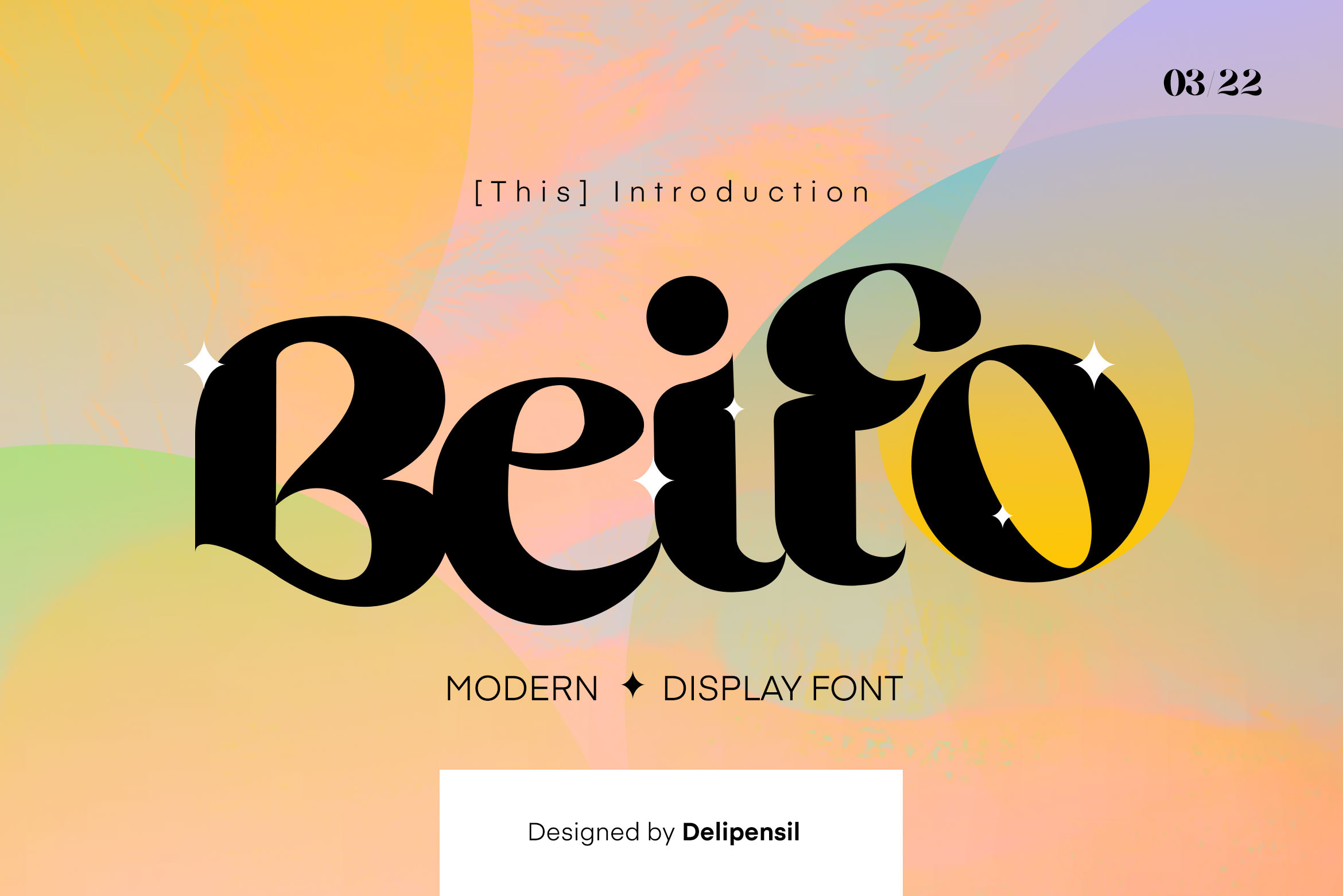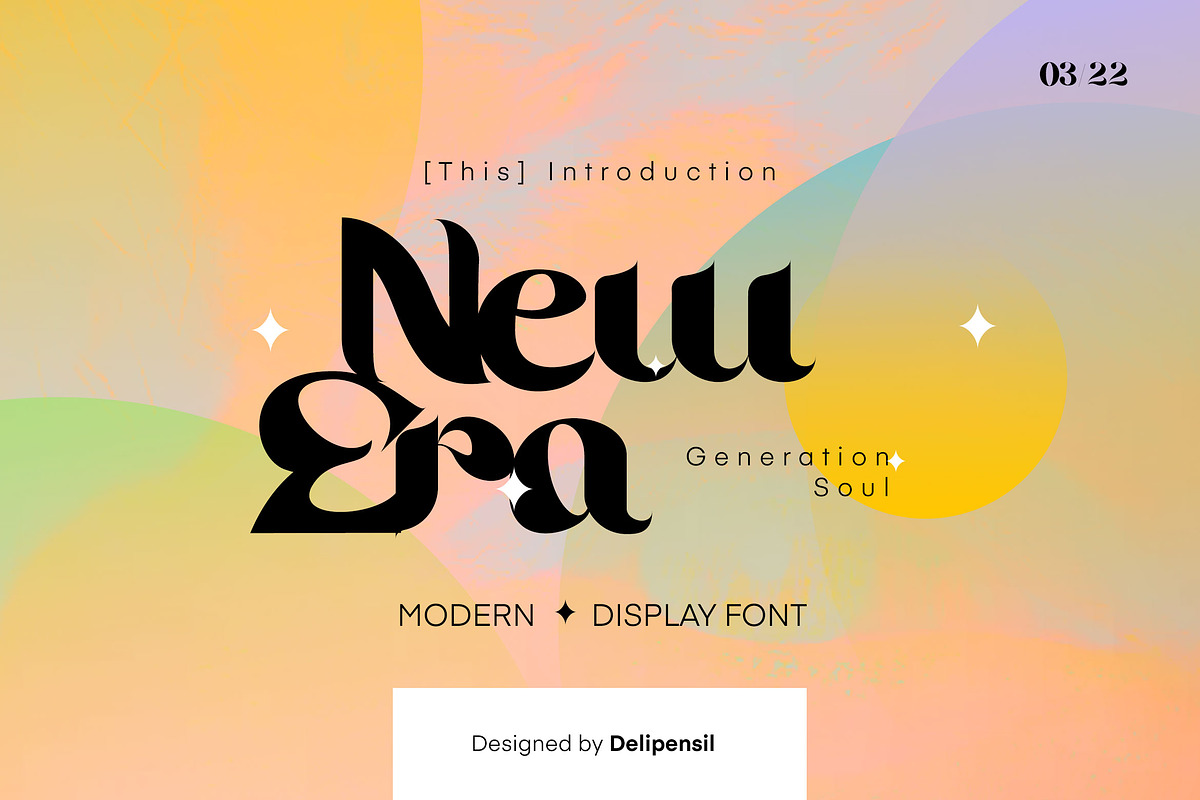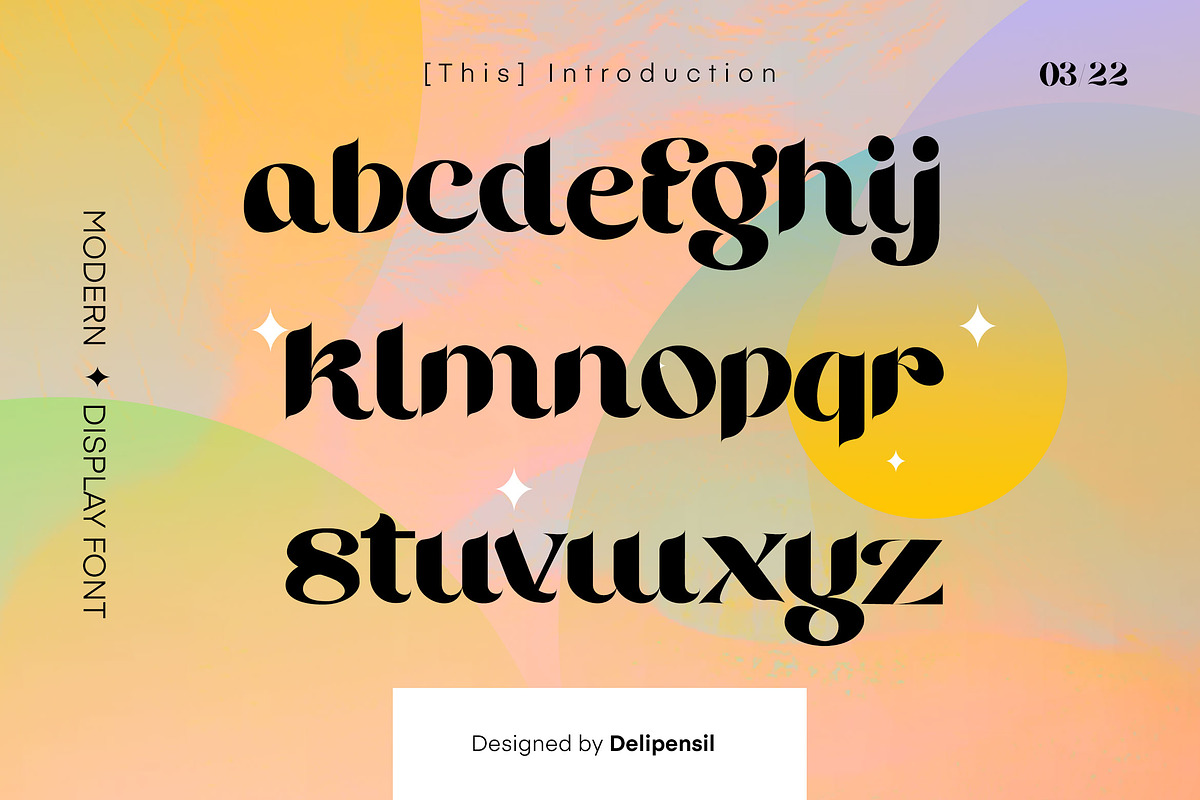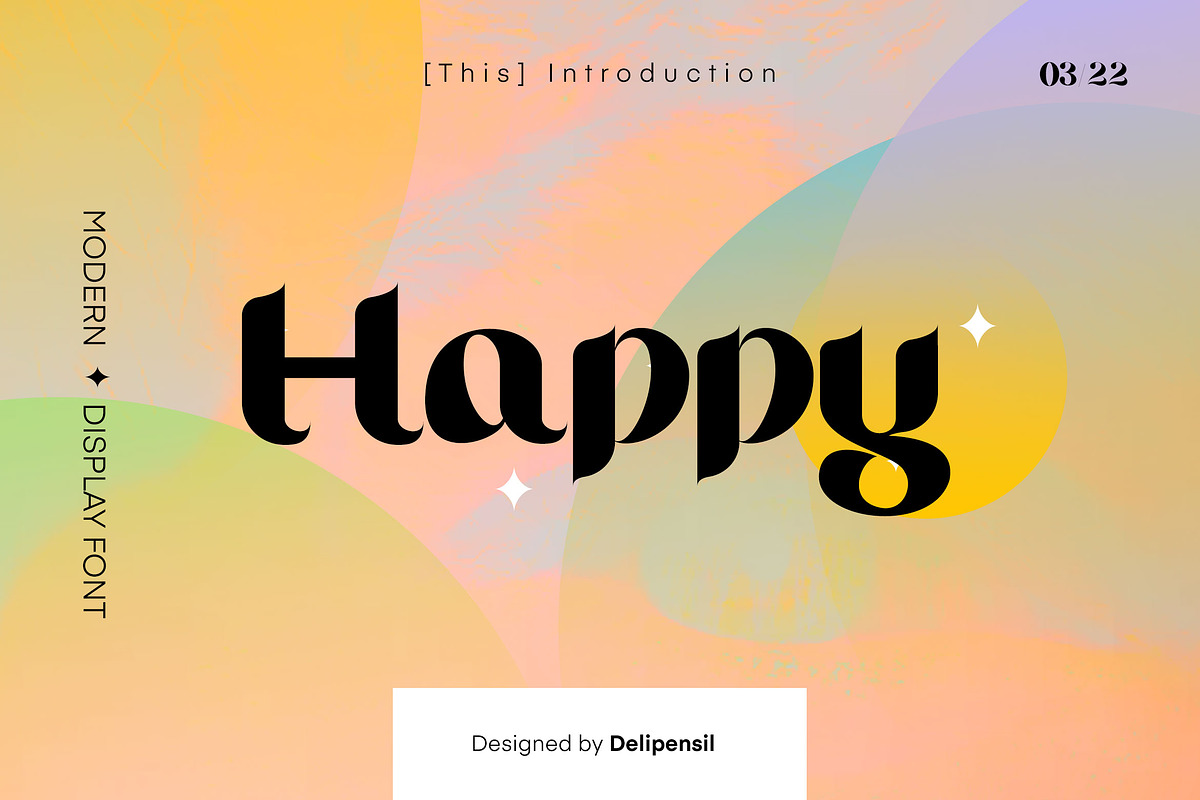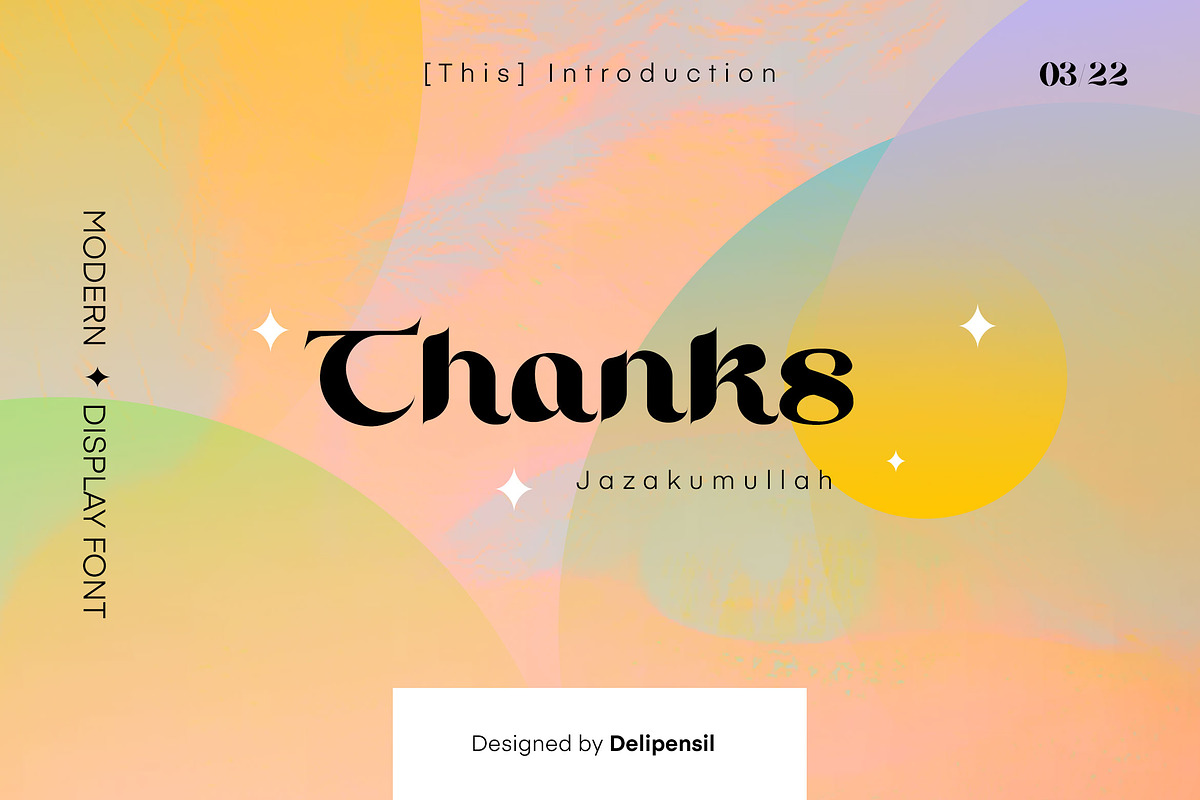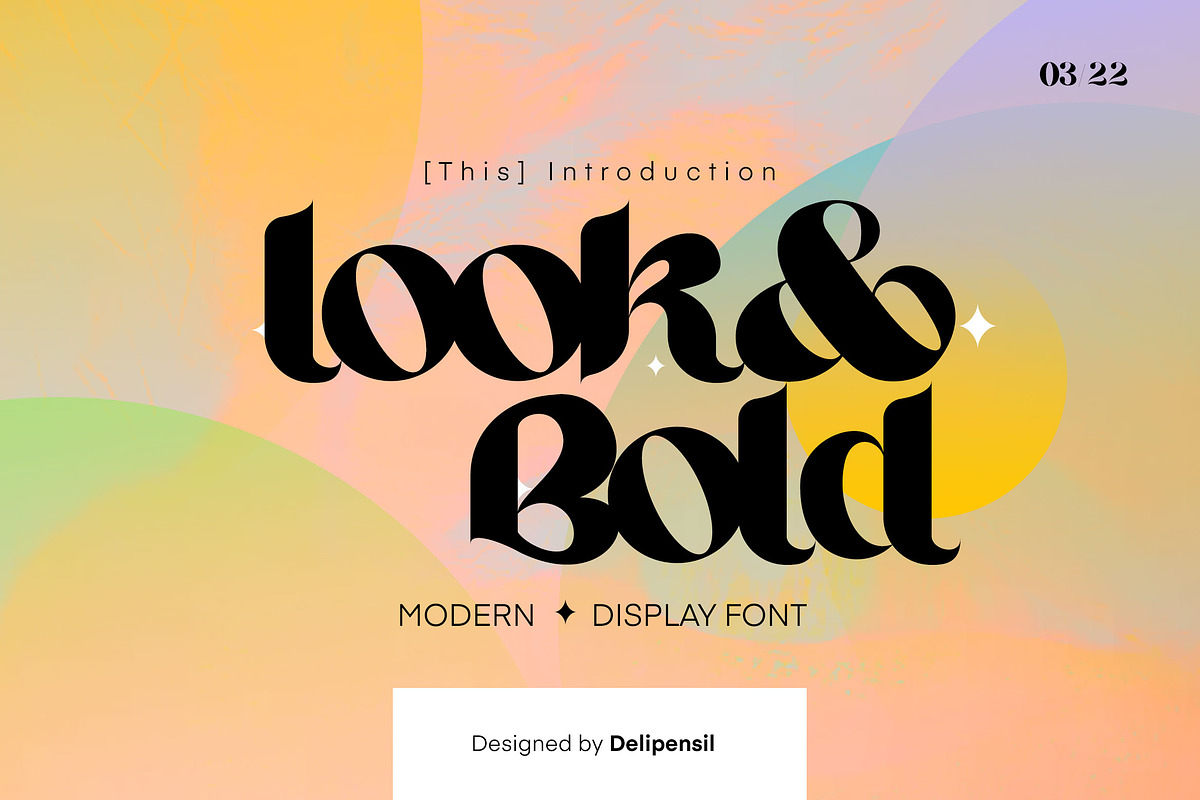
BEIFO - Modern - Display Font
Bismillah, Introduction BEIFO Modern Display Typeface 👑✨
This great time to make your design more stunning with BEIFO Typeface, a beauty Font to grow your design and this font made for Modern and Display feel, we already now you here to find out the font to suitable for Branding Staff, Magazine Title, Product Company, Logo, & Many More, and Yes you on the right place :)